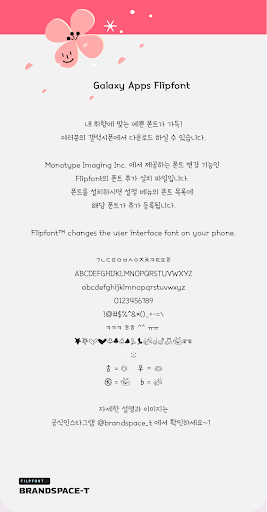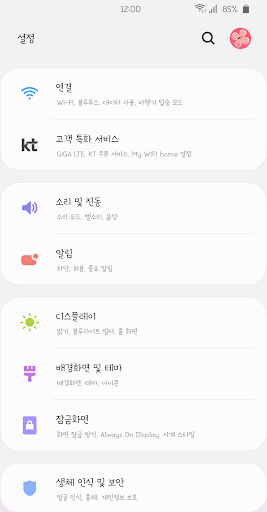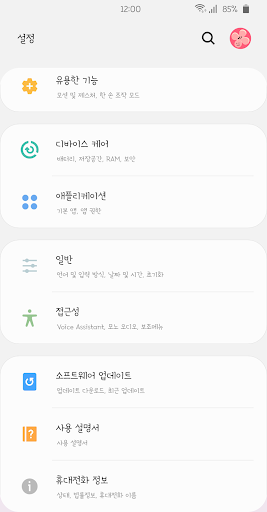
BST HiSerif
This typeface is a cute typeface written with freedom in stroke order. The magnets and beaks that are tightly gathered in a rolled shape as if they were flowing, giving them a good and lively feeling. Hello Serif, "Soon, My, My Brand," a day full of laughter. Look for cute Dingvets that are full of energy!
+Hidden special text ♨ with a pretty smile!
+♭ (Butterfly) ♂ (Hi Rabbit) ♂ (Boy) ♀ (Girl) is here!